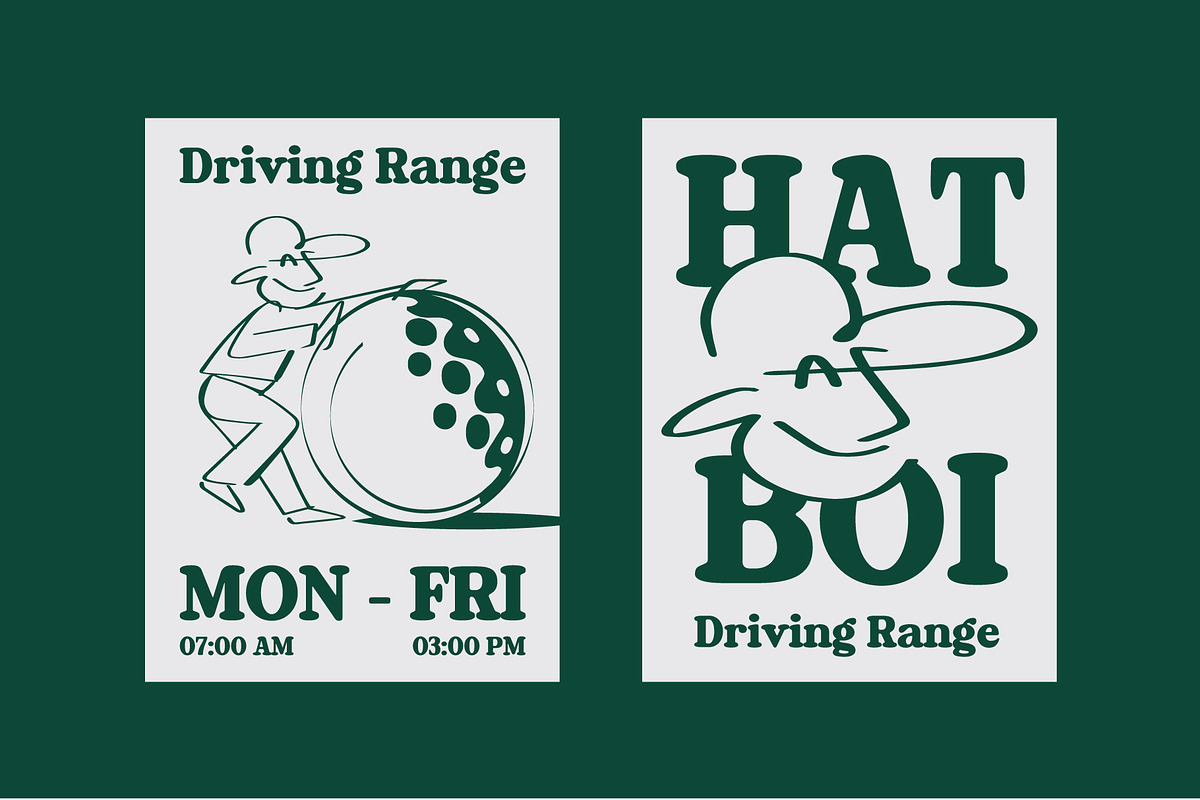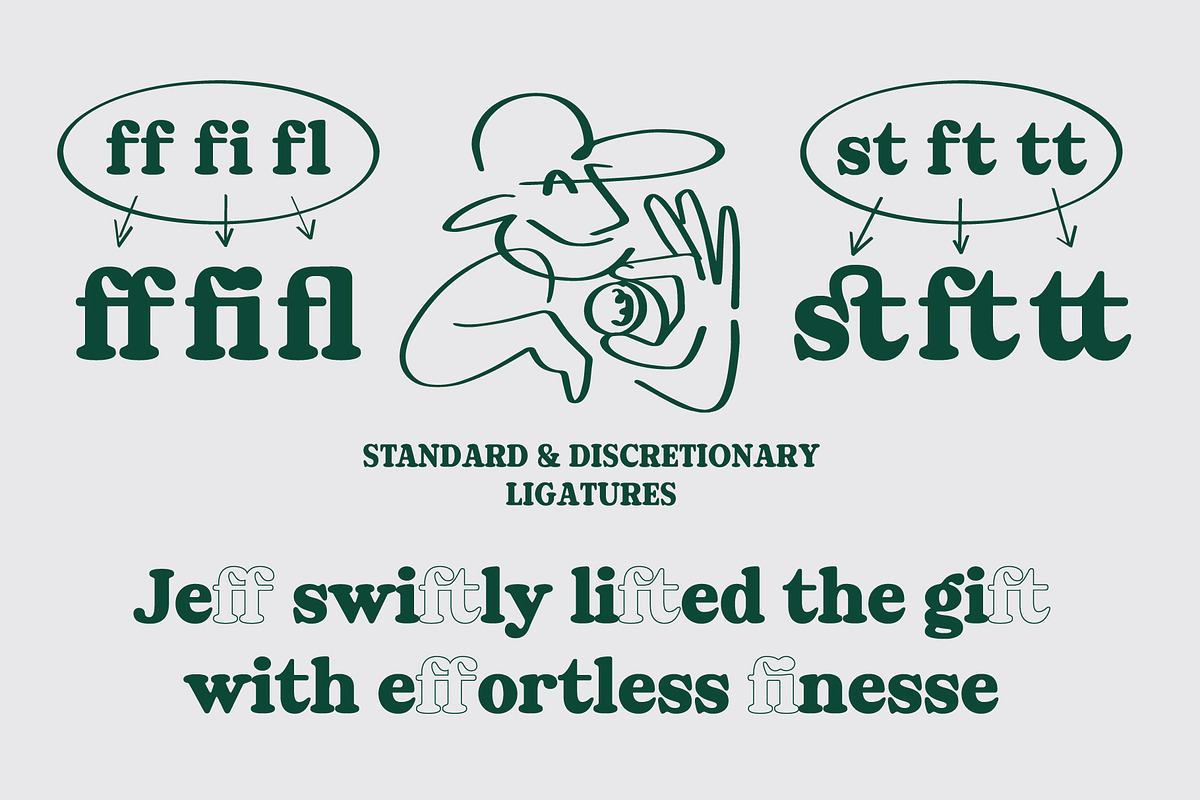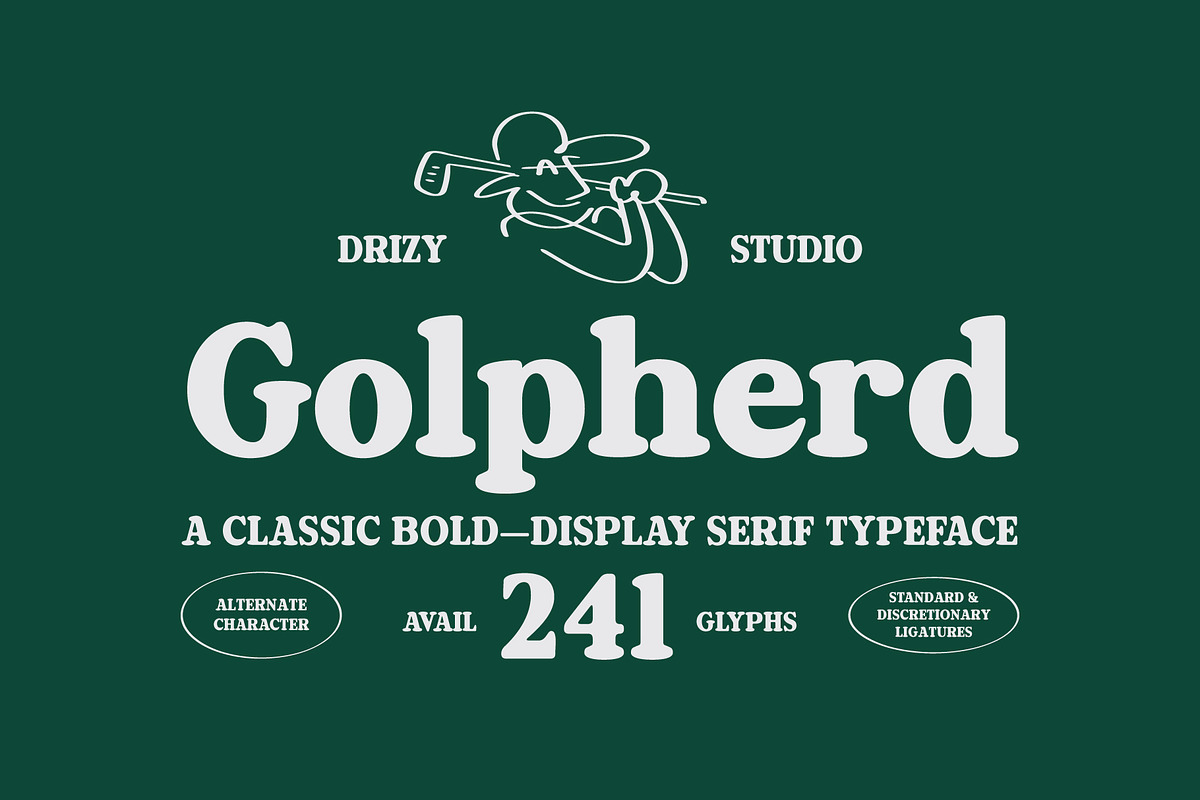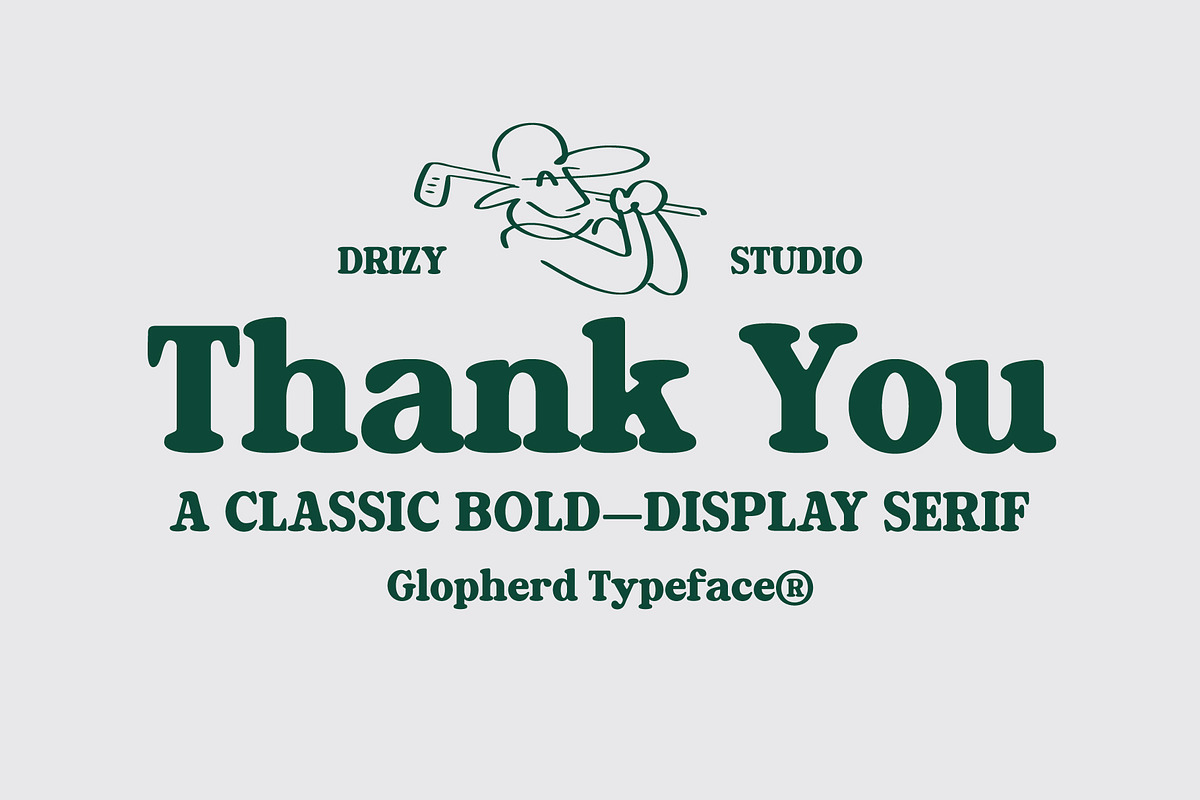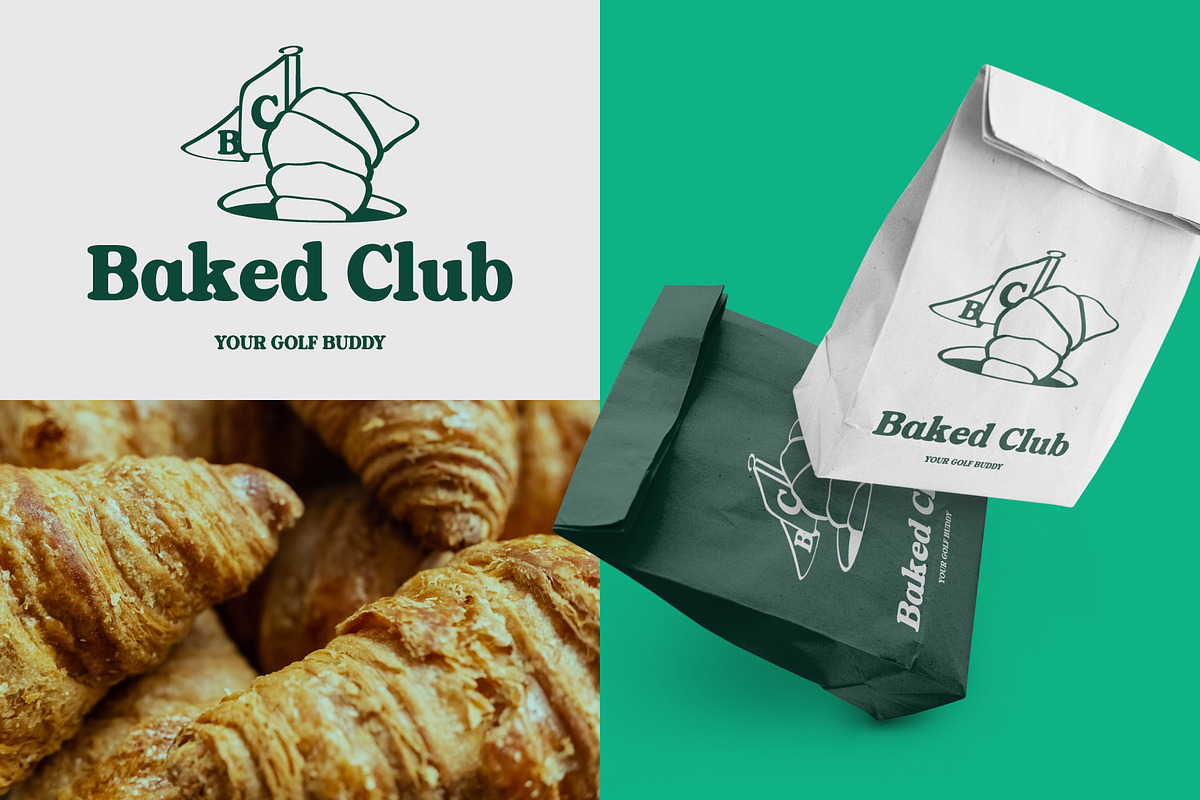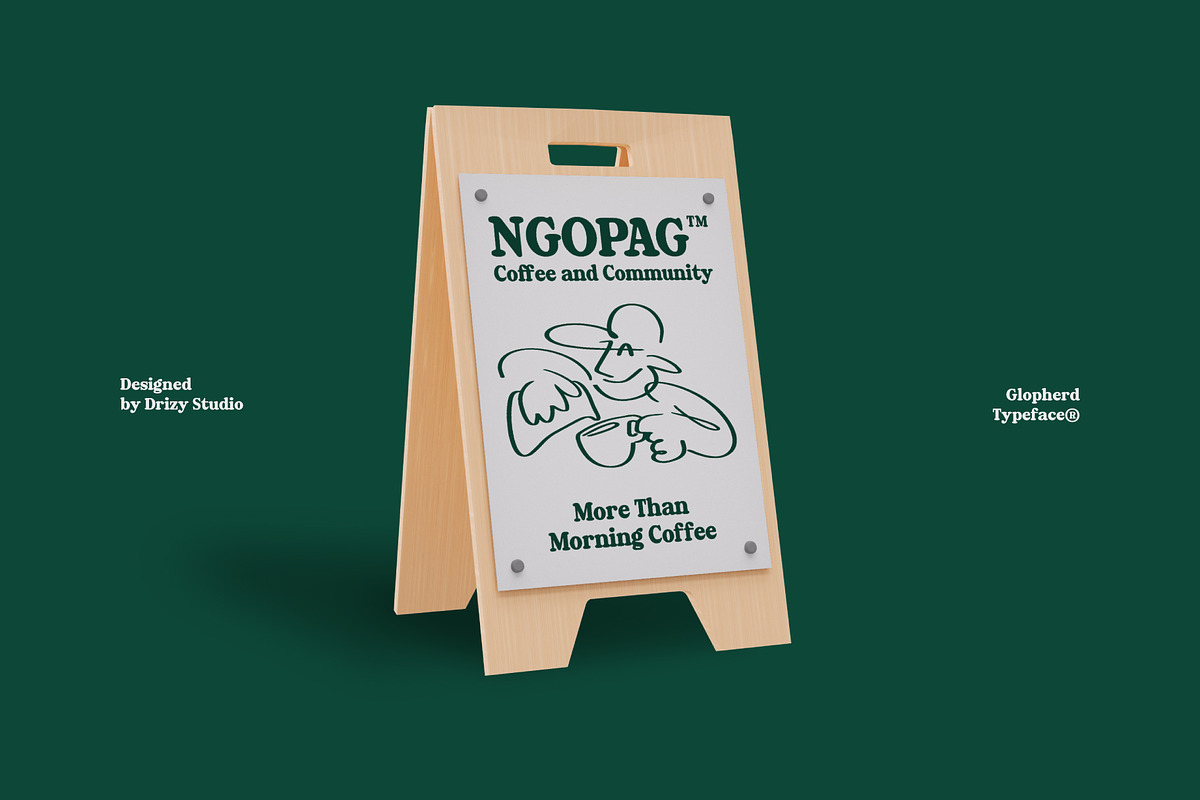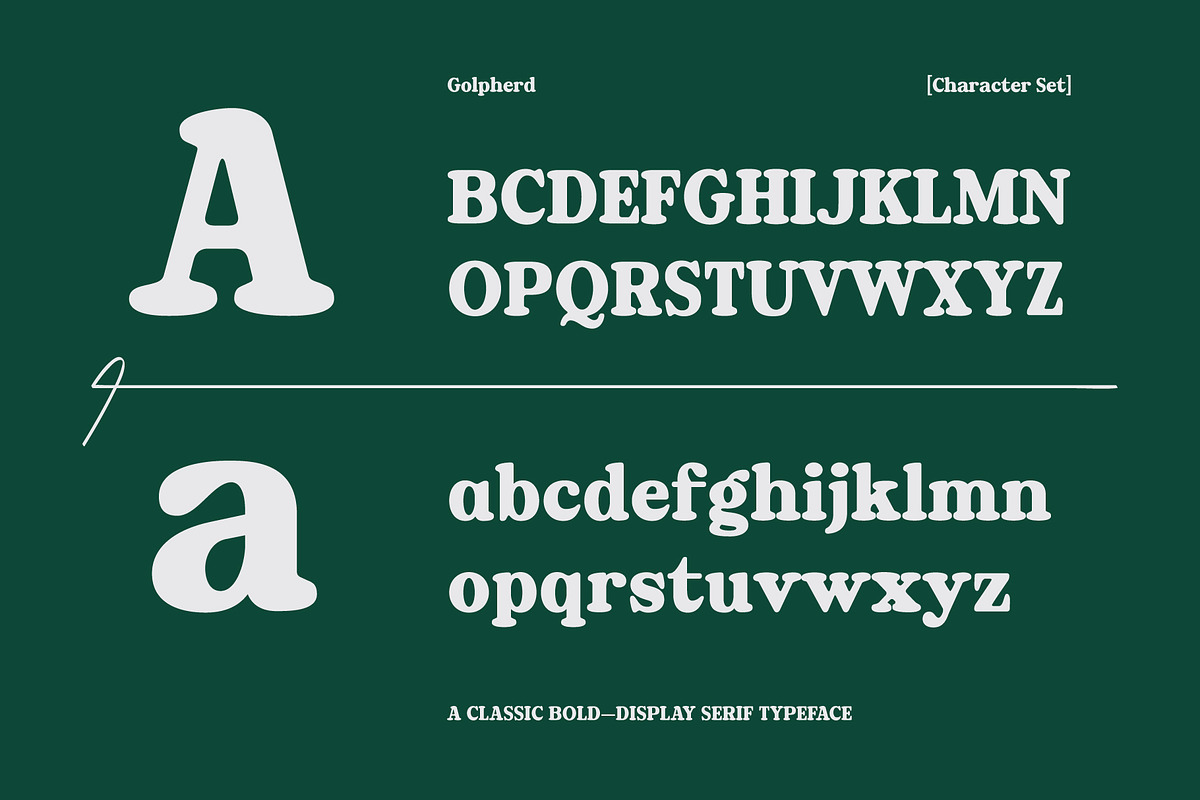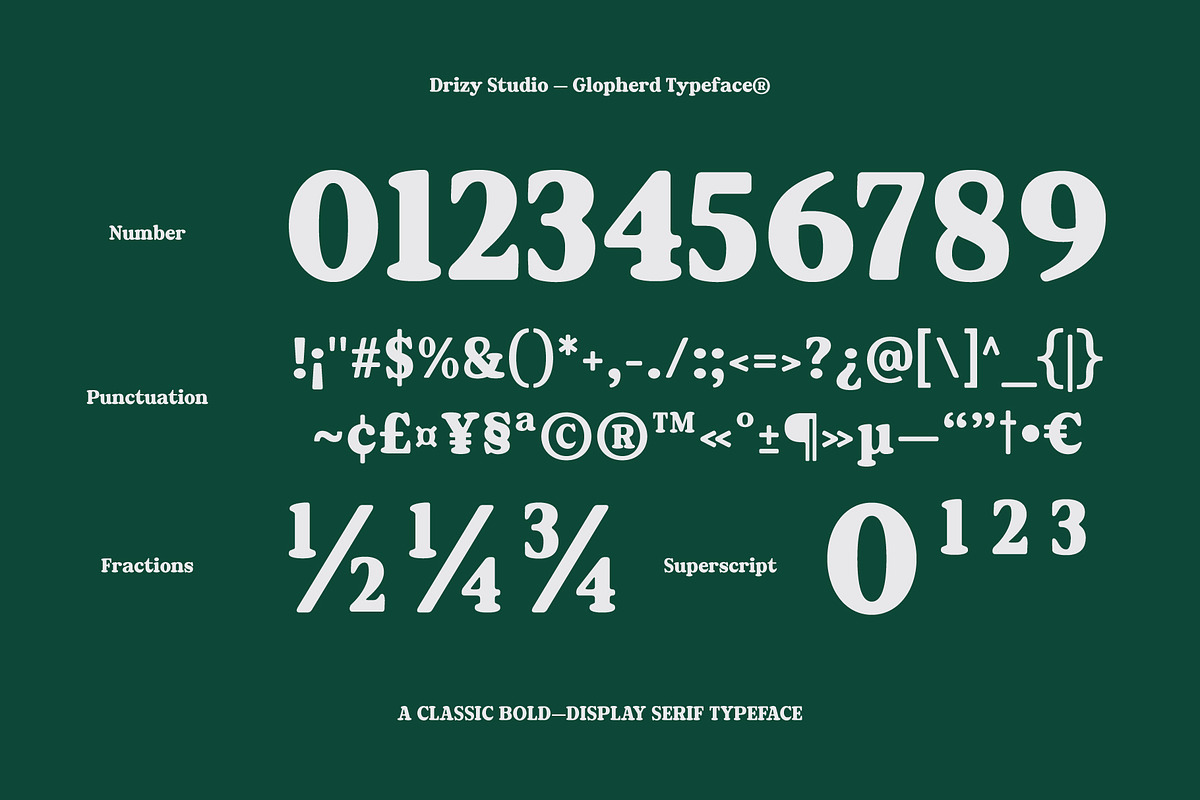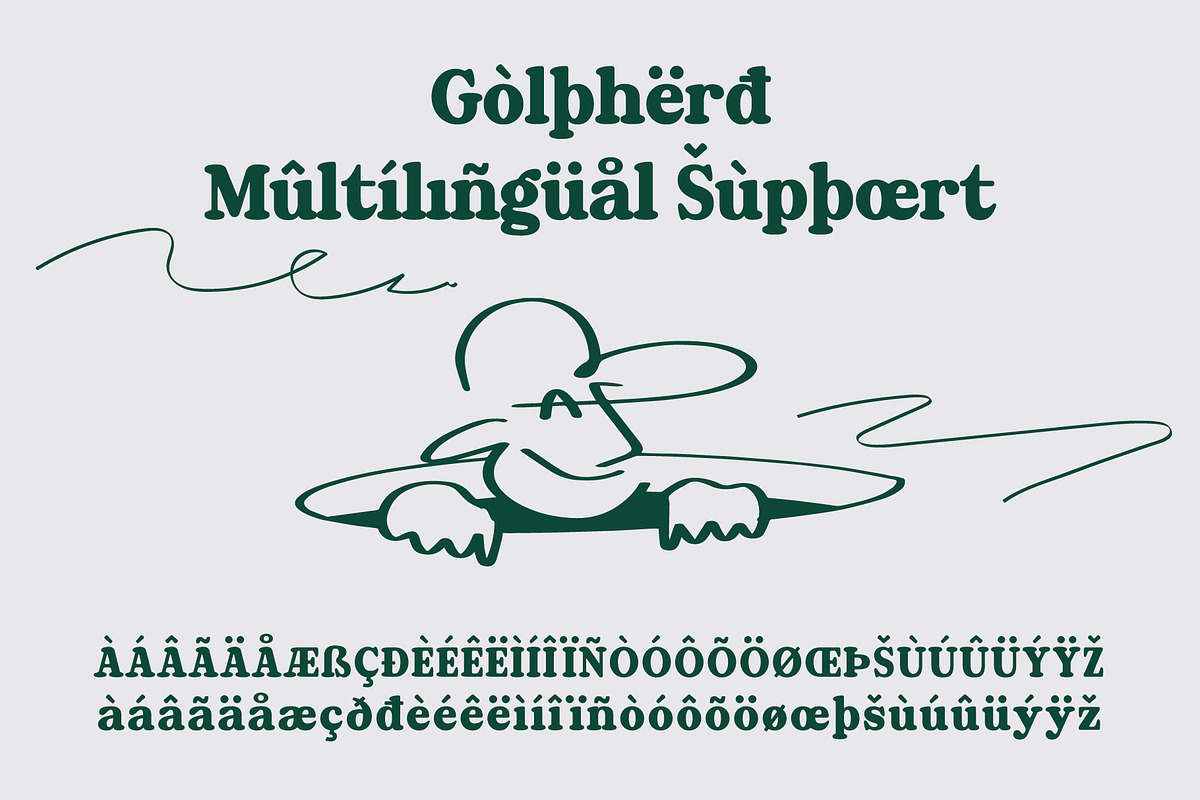
Golpherd – Classic Bold Display Font
Golpherd is a timeless typeface that embodies the elegance and sophistication of classic golf culture. Perfectly suited for both modern and traditional designs, Golpherd effortlessly combines boldness with finesse, making it an ideal choice for any project that requires a touch of refinement. This font stands out with its strong, clean lines and carefully crafted details, reflecting the poised grace of the sport it represents.The font captures Golf – Elegant Sport (Classic Taste) the essence of golf’s rich heritage while offering versatility for contemporary use. Its classic taste ensures that your designs remain timeless and stylish, appealing to an audience that appreciates the finer things in life.
Golpherd features:
- Character Set (Uppercase & Lowercase)
- Punctuation & Numbers
- Standard & Discretional Ligatures
- Alternates “a”